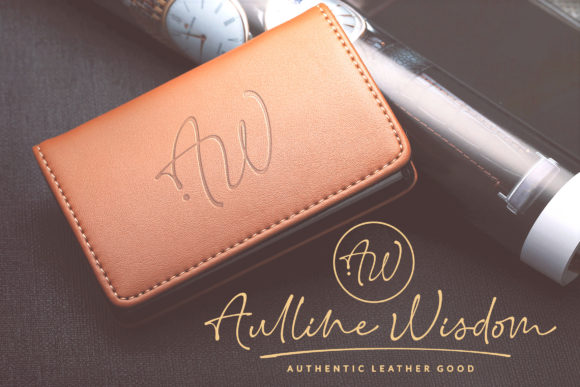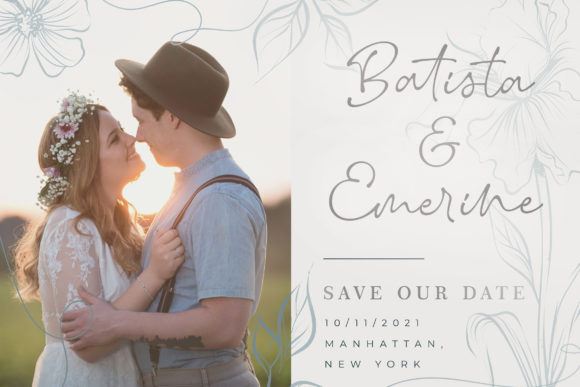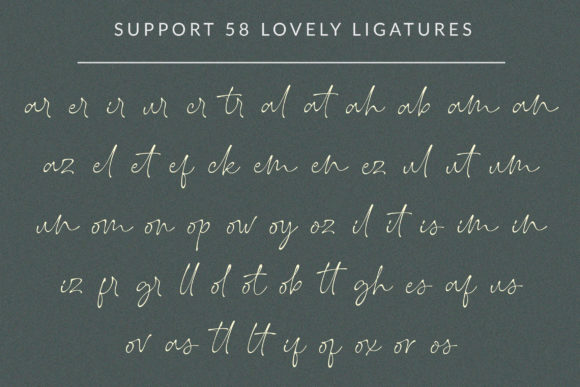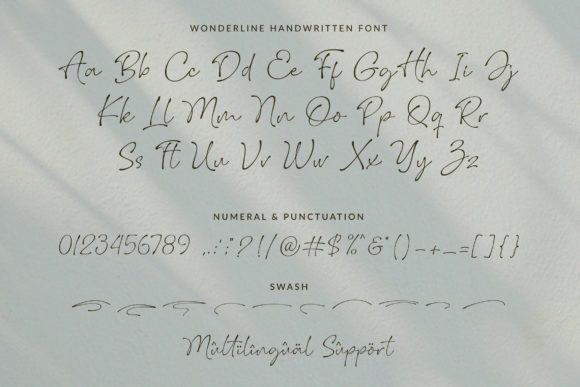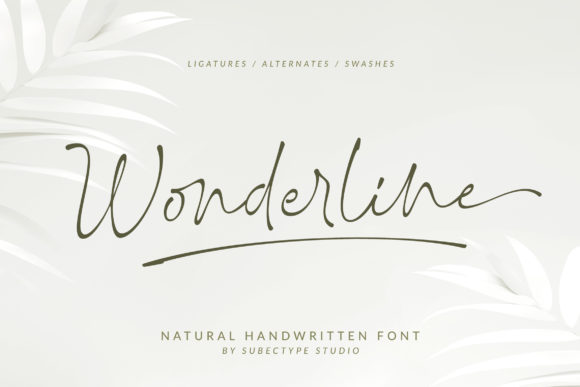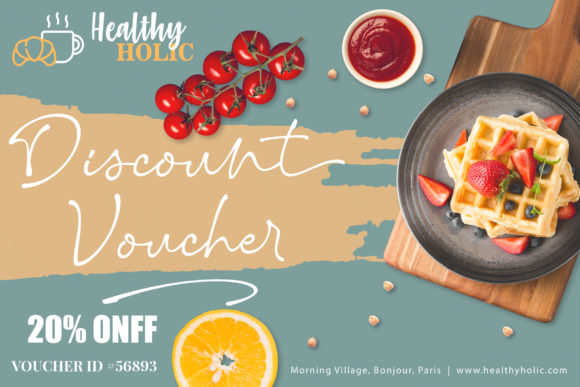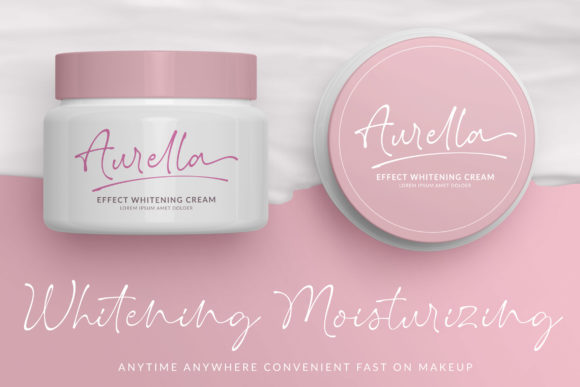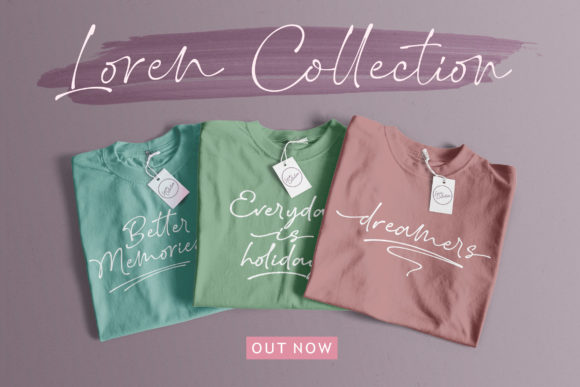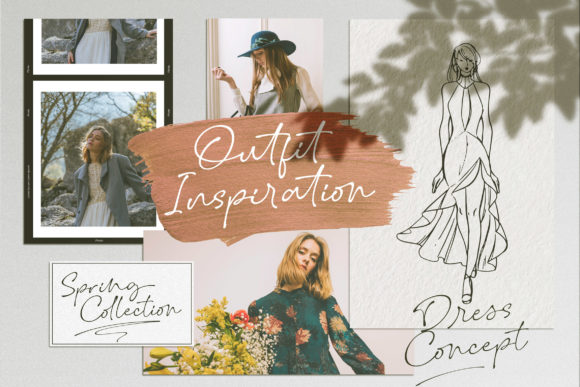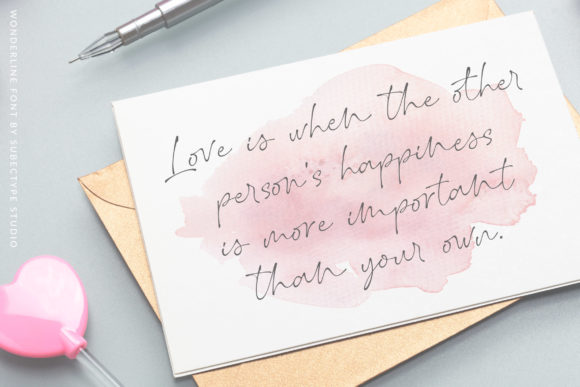
HomeScript FontsWonderline Font Script Fonts Wonderline Font FacebookXPinterestWhatsApp Wonderline Font Poster 2 Wonderline Font Poster 3 Wonderline Font Poster 4 Wonderline Font Poster 5 Wonderline Font Poster 6 Wonderline Font Poster 7 Wonderline Font Poster 8 Wonderline Font Poster 9 Wonderline Font Poster 10 Wonderline Font Poster 11 Wonderline Font Poster 12 Wonderline Font Poster 13 About Wonderline Font Wonderline is a sophisticated and modern script font. It will add a romantic feel to any crafting project! DOWNLOAD NOW People also explored Blossom Monogram Font Eureka Spring Font Geovania Font Bealy Beyla Font Bathroom Font Detha Rasigta Blindspot Font Invictus Font Oscar Font 329 0 TagsWonderline Font Previous articleChronicle FontNext articleArdsttandsille Font LEAVE A REPLY Cancel reply Comment: Please enter your comment! Name:* Please enter your name here Email:* You have entered an incorrect email address! Please enter your email address here Website: Save my name, email, and website in this browser for the next time I comment. Personal Use Free Electroharmonix Personal Use Free Read more about this font Browie Personal Use Free Read more about this font Cuttering Personal Use Free Read more about this font Hanberra Personal Use Free Read more about this font BLOG Free vs Paid Fonts: Why Investing in Premium Fonts Is Worth It Free vs Paid Fonts: Why Premium Fonts Are Worth It in 2025 The debate of free vs paid fonts continues in the design world. While... To increase your work productivity, choose the most readable fonts. Modern Sans-Serif Fonts That Brands Love in 2025 Best Fonts for T-Shirt Design – Top 2025 Picks